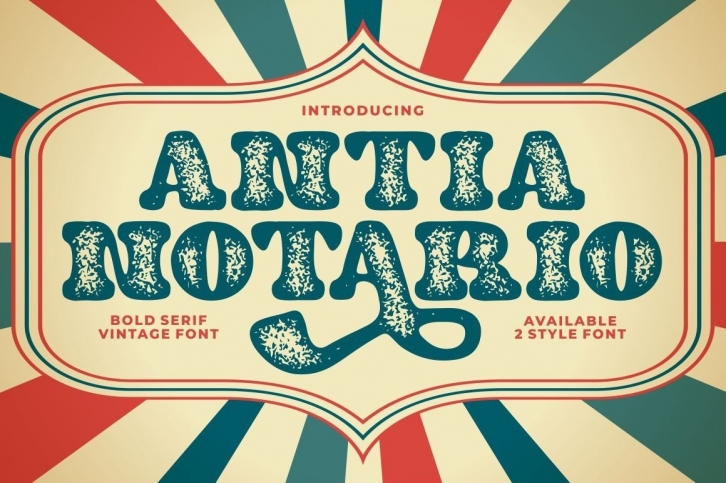
Antia Notario is a modern vintage serif font with beautiful ligatures and tons of alternative glyphs. It’s bold, groovy, clean, and unique with a vintage feel. Antia Notario is a very versatile font that works great in large and small sizes. Helps to create layout designs in the 60s or 70s – themed projects.
Antia Notario works best in headlines, covers, posters, logos, quotes, product packaging, merchandise, social media & greeting cards, and more.